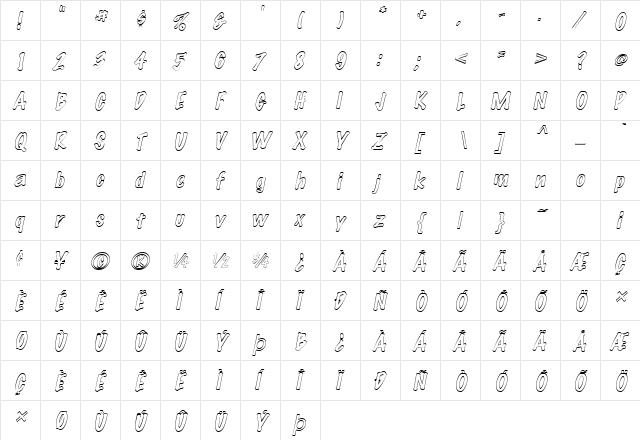
MarkerHollow Italic
Design Context for MarkerHollow Typeface
MarkerHollow is a composed and adaptable typeface that performs quietly and consistently across a wide range of design contexts. The slanted form adds forward momentum and visual energy.
Pro Tip: Use MarkerHollow for emphasis, pull quotes, and subheadings where its slanted energy can add rhythm to the layout.